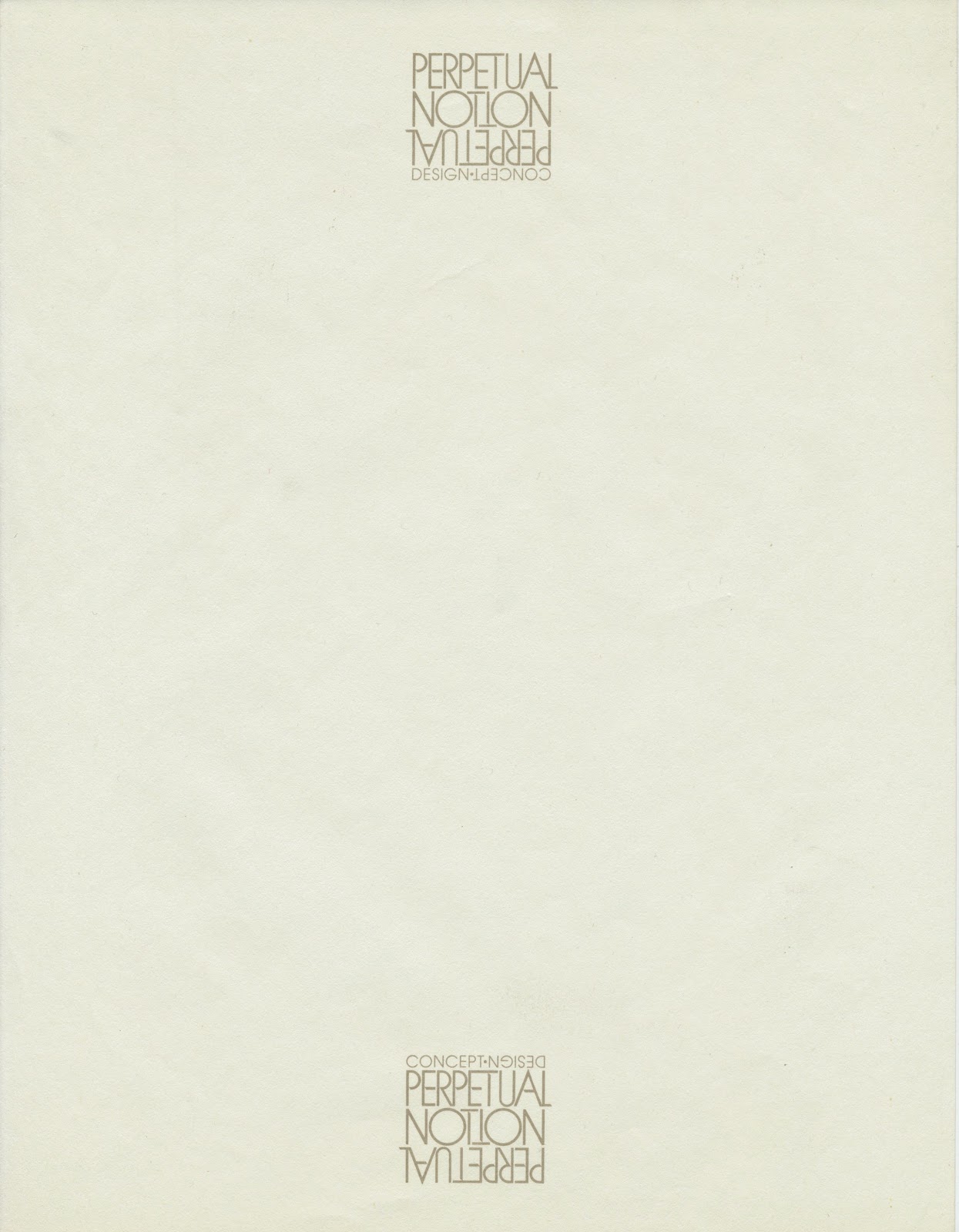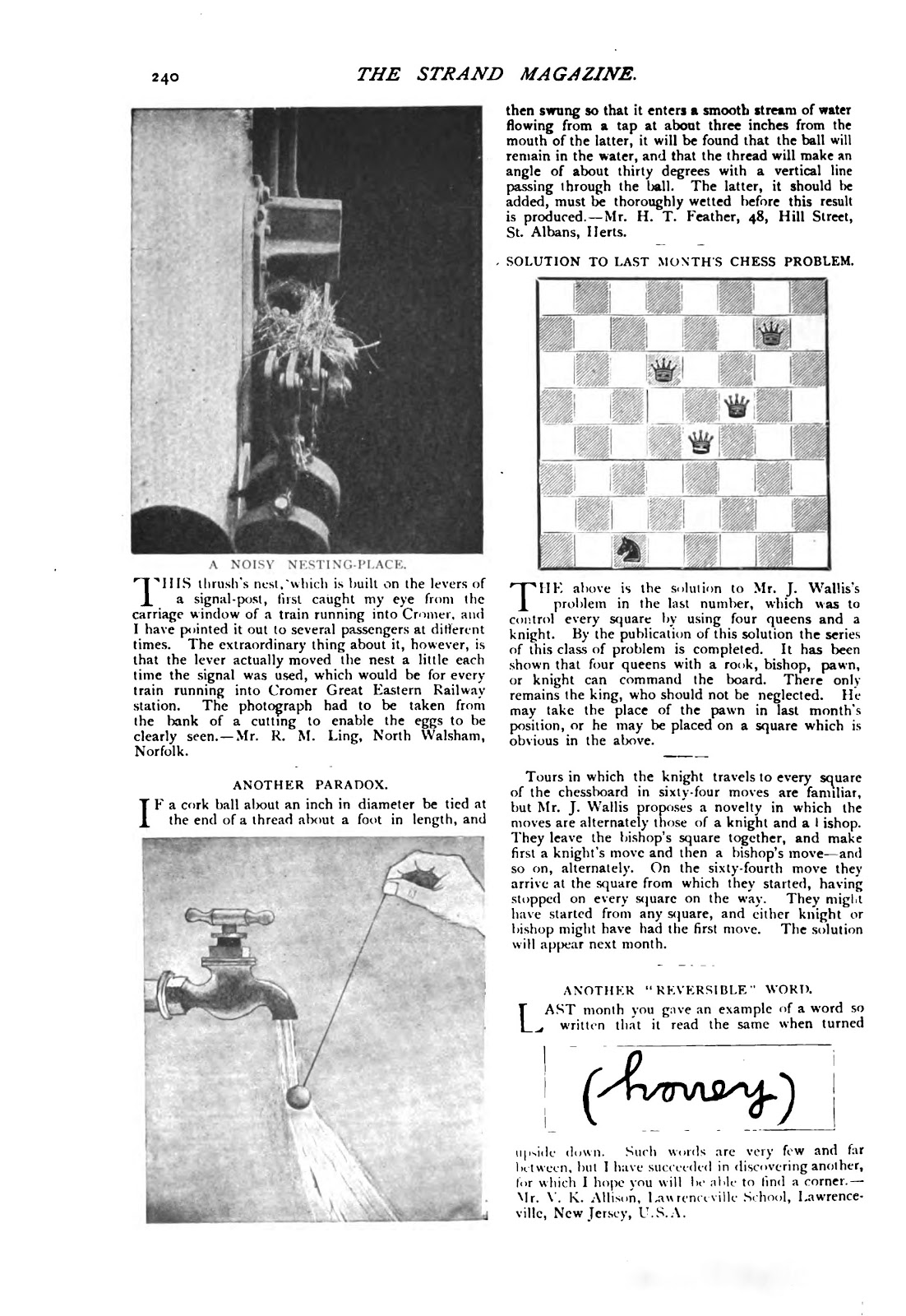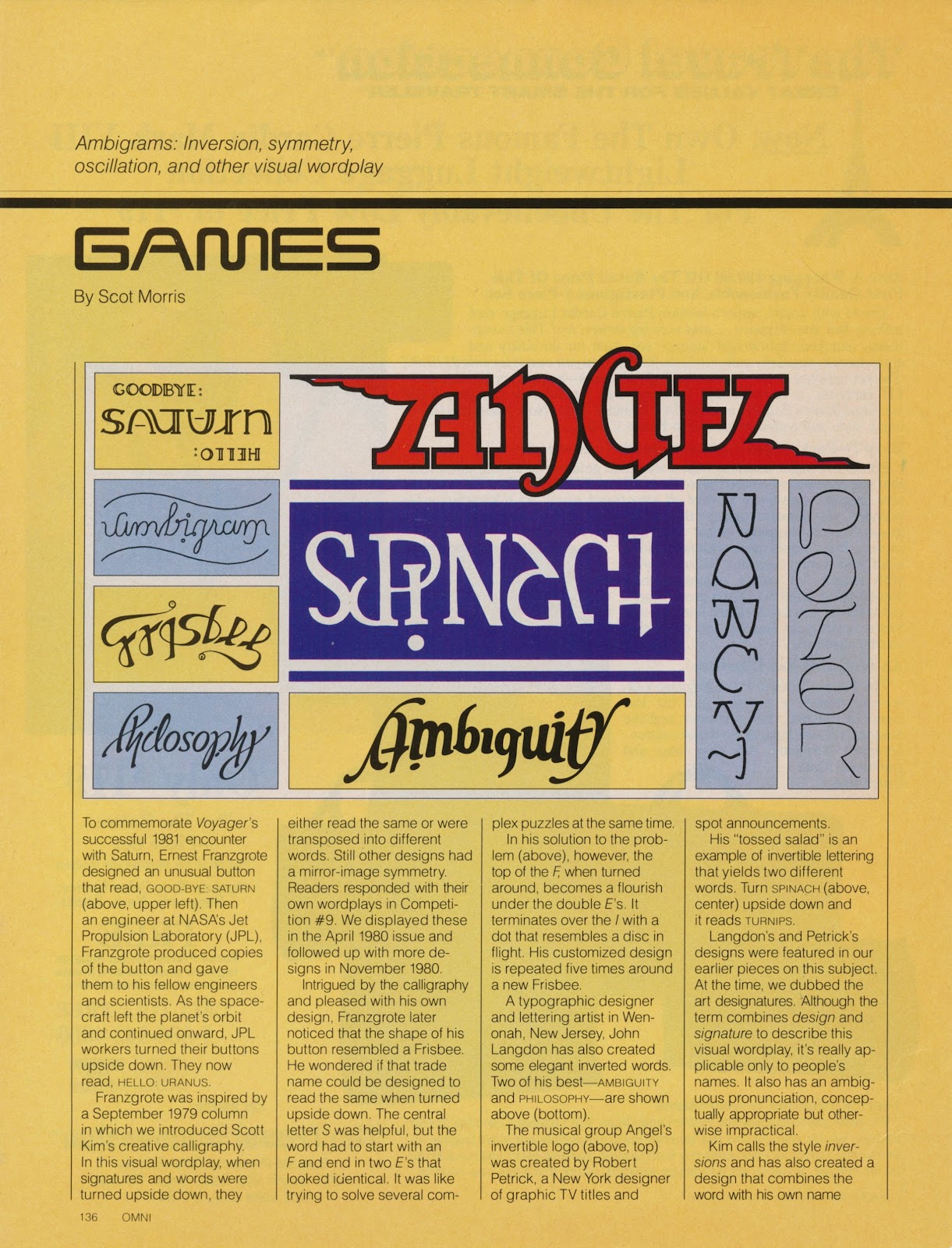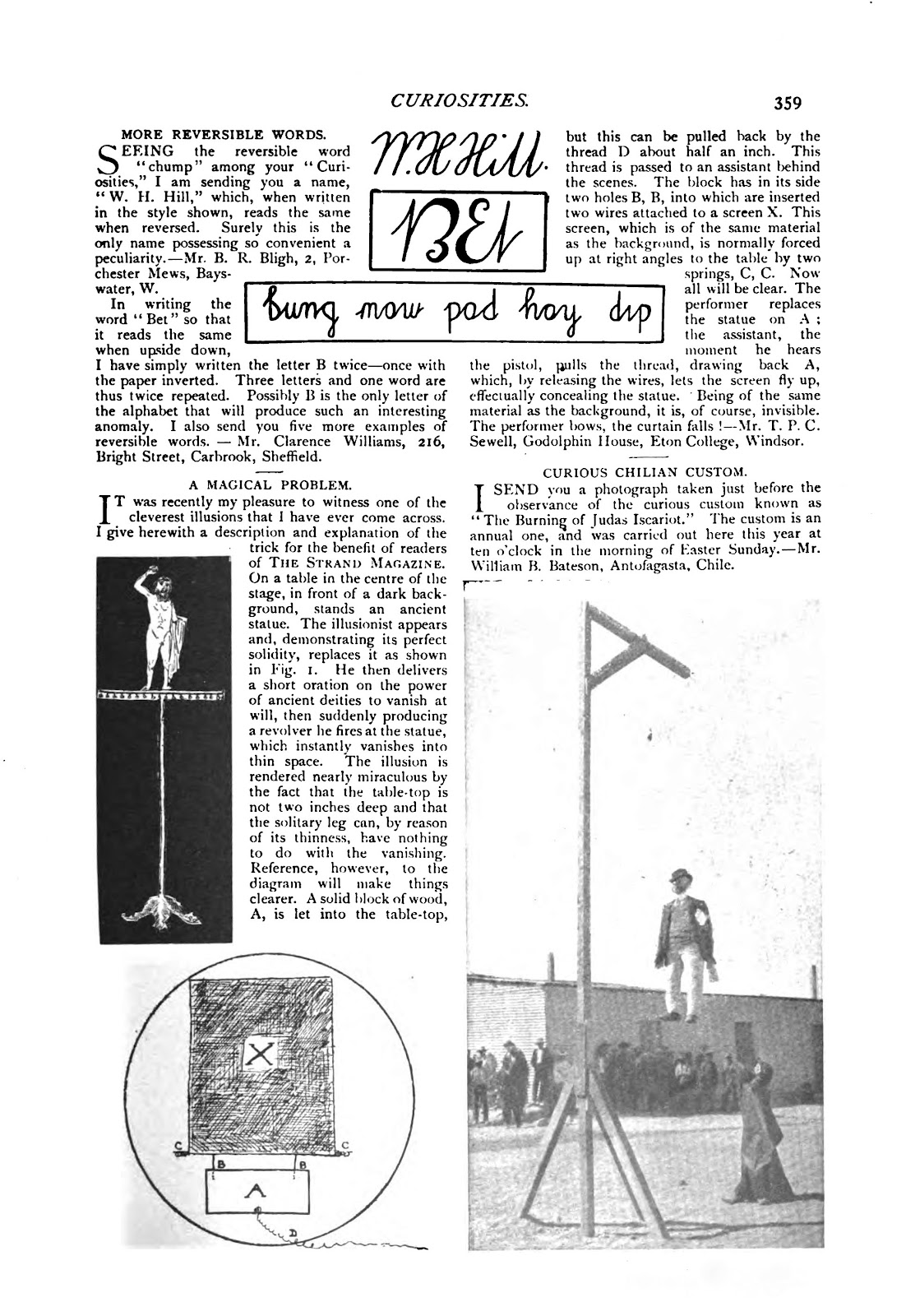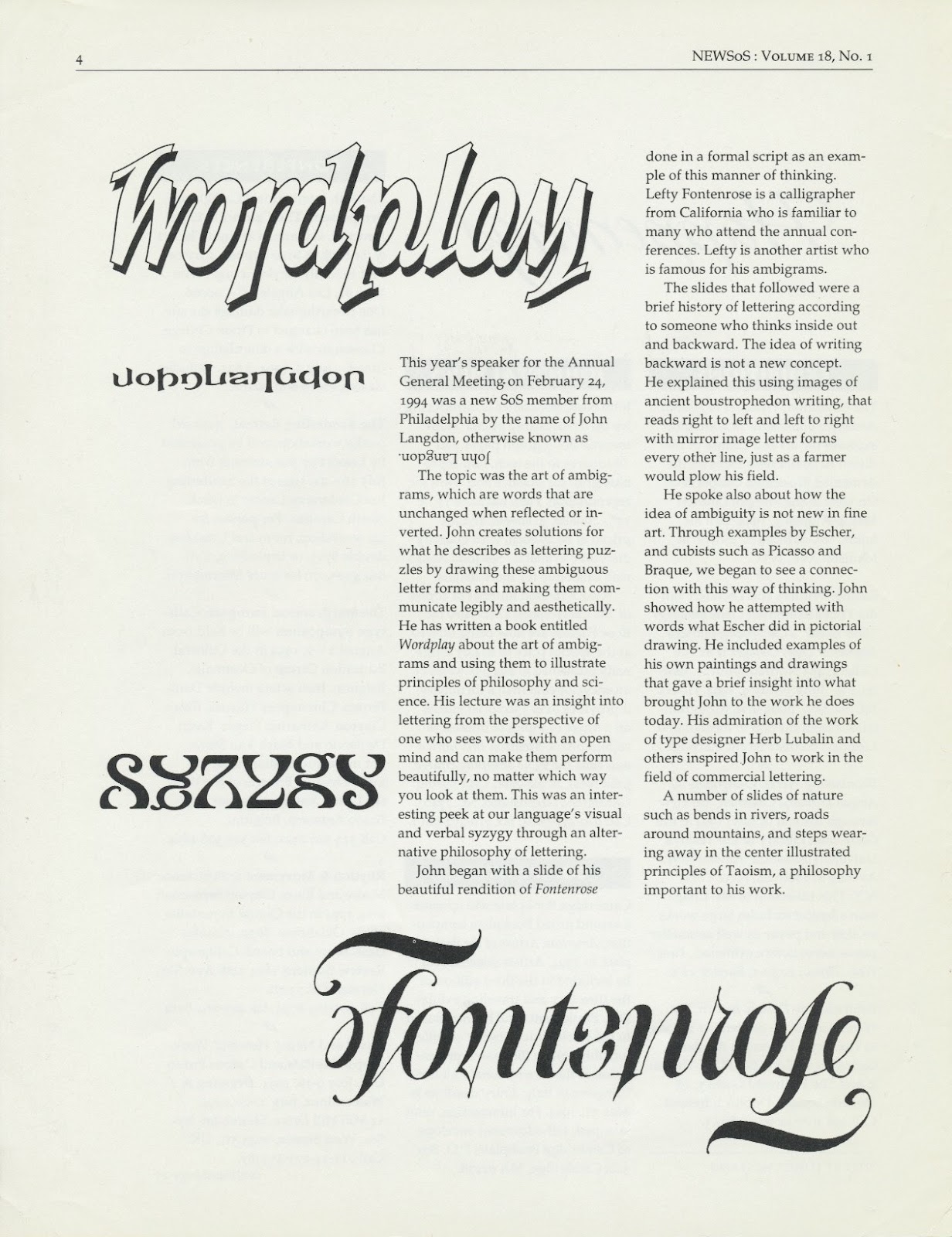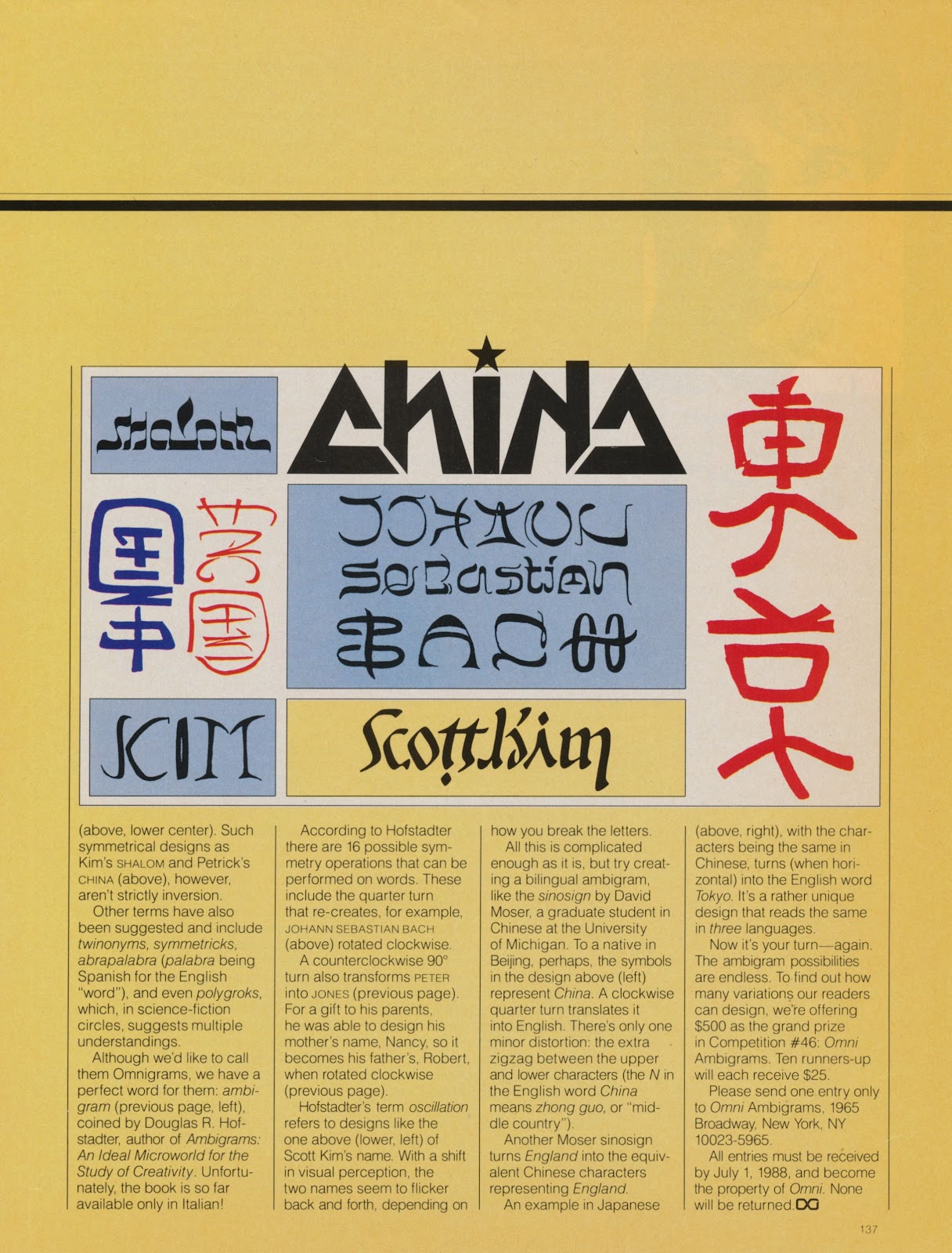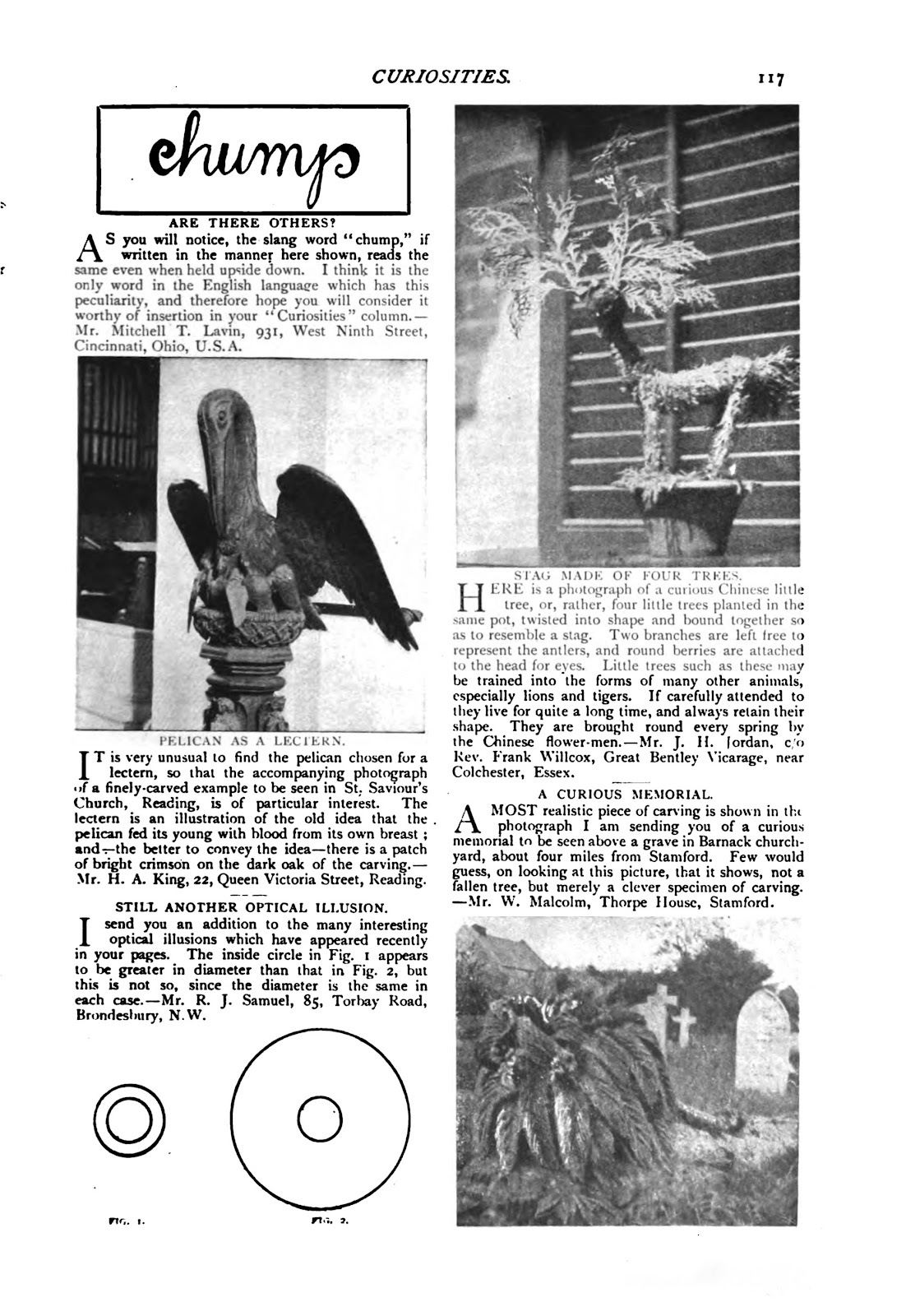
Anatomy of a Logo: Perpetual Notion
Perpetual Notion was a New York City design studio formed by Tom Chung and Dale Campbell in the 1980s. In the mid-1970s I met Tom at Arizona State University when we were students. Dale was one of Tom’s classmates. Tom showed me some his logo designs for the new studio. I sketched a logo as an ambigram. Tom reworked my sketch, lettered the logo and designed the stationery.
Creator: John Langdon
Wordplay
Harcourt Brace Jovanovich, 1992
Dust jacket detail and selected pages
NEWSoS, Spring 1994
Newsletter of the Society of Scribes
Lettering: Ambigrams
The Strand Magazine
chump
honey
October 1908
W.H. Hill, Bet, bung, mow, pod, hay, dip
Omni magazine 1988
Vans advertisement, 1992
New X Men, July 2001
Topsys & Turvys
Peter Newell
Dover Publications, 1964
Cover and “puzzle / the end”